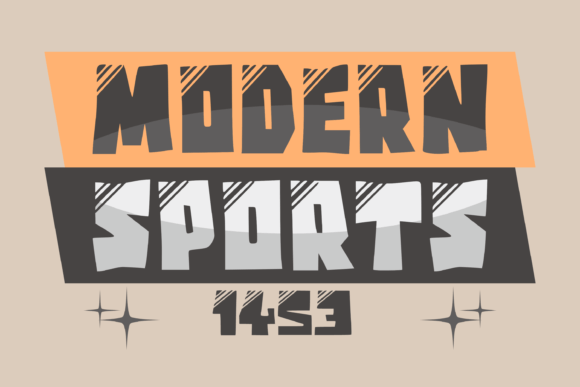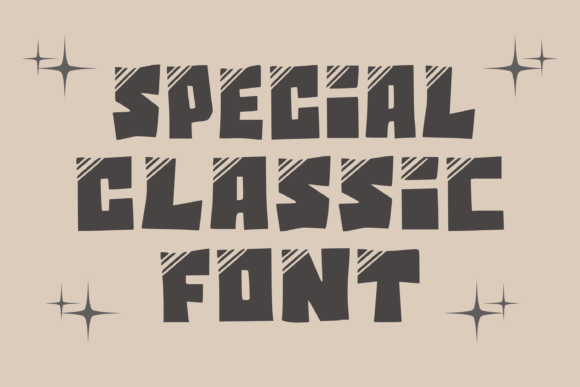
Unleash Your Creativity with the Bold Black Boy Font
Remember the thrill of creating your first project, surrounded by endless possibilities and a spark of excitement? You’re brainstorming ideas, sketching out designs, and envisioning the final product – and that’s when it hits you: the perfect font to bring your vision to life.
Enter the Black Boy Font – a dynamic, sports-inspired typeface that injects joy and stamina into your projects. Designed to stand out, this versatile font is perfect for adding a bold touch to headlines, posters, and more. Whether you’re a seasoned designer or just starting out, the Black Boy Font is a valuable addition to your toolkit, helping you create visually appealing and engaging designs that capture attention and leave a lasting impression.
Black Boy Font Key Features
• Font Family: Black Boy Font is a sans-serif typeface.
• Unique Characteristics: Black Boy Font features a unique blend of modern and vintage elements, with clean lines and a strong, bold feel.
Black Boy Font Review
I recently had the chance to work with the Black Boy font, and I have mixed feelings about it. ✨ First of all, I love the unique and bold aesthetic it brings to any project. The font’s geometric shapes and clean lines make it perfect for creating striking headlines and titles.
The font also excels in terms of readability, especially in larger font sizes. The bold weight is particularly effective for creating a sense of urgency or importance, which is great for marketing materials and advertisements.
• The font may not be suitable for body text due to its limited range of weights and styles.
• The font’s geometric shapes can make it difficult to read at smaller font sizes.
• The font may not be as versatile as some other fonts, which can limit its use in different design contexts.
Overall, I think the Black Boy font is a great choice for designers who want to add a bold and modern touch to their projects. However, it’s not a one-size-fits-all solution, and designers should be aware of its limitations before using it.
Black Boy Font Practical Application Guide
For a more authentic look, pair the Black Boy font with a bold, distressed background.
For a more dramatic effect, use the Black Boy font in conjunction with bold, geometric shapes.
For a more edgy look, pair the Black Boy font with bold, contrasting colors.
The Black Boy font is ideal for:
1. Streetwear and urban-inspired designs.
2. Graffiti and stencil art.
3. Edgy, avant-garde typography.
For optimal results, use the Black Boy font in conjunction with bold, distressed backgrounds and contrasting colors.